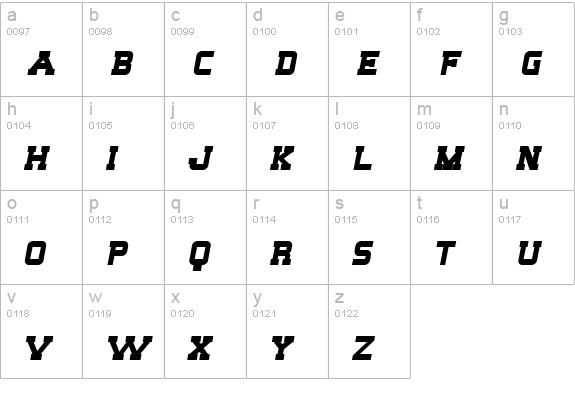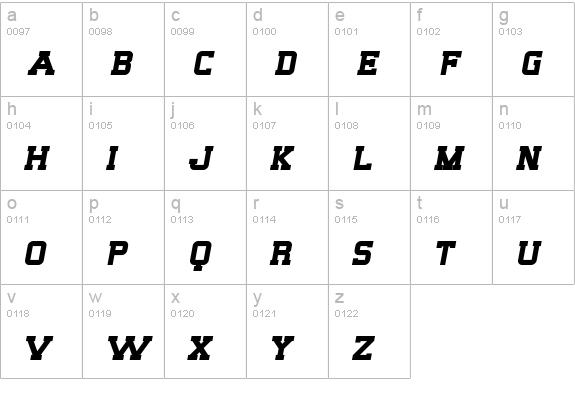
SF Big Whiskey SC Bold Font Details
SF Big Whiskey SC Bold is a strong, high-contrast variant in the SF typeface family \xE2\x80\x94 well suited to headlines, attention-grabbing titles, and strong calls-to-action.
SF Big Whiskey SC Bold is a striking and bold font that exudes confidence and strength. With its clean lines and impressive presence, this font is perfect for projects that require a powerful and impactful visual statement. The uppercase characters are solid and commanding, with thick strokes that create a strong and sturdy appearance. The lowercase letters are slightly condensed, giving them a sleek and modern feel. The combination of these elements makes SF Big Whiskey SC Bold a versatile font that can be used for a wide range of design projects. Whether you're creating a bold logo, a striking headline, or eye-catching packaging, SF Big Whiskey SC Bold will make sure your message is heard loud and clear. Its distinct and memorable style will grab attention and leave a lasting impression. One of the best things about SF Big Whiskey SC Bold is that it is freely available to download at FontsMarket.com. This means that you can easily access this powerful and impactful font without any cost. It's a fantastic opportunity to elevate your design projects without breaking the bank. So, if you're looking for a font that combines strength, boldness, and a touch of modernity, look no further than SF Big Whiskey SC Bold. Download it for free at FontsMarket.com and unleash its power in your designs.